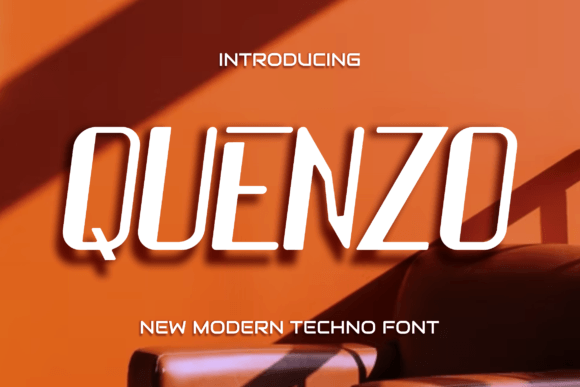
Prepare to be mesmerized by Quenzo, the display font that's bursting with character and endless possibilities. Its playful and dynamic nature ignite a spark of creativity within you, urging you to unleash your imagination.
Quenzo's charming personality transcends the mundane, inviting you to craft designs that radiate a sense of joy and whimsy. Whether you're a seasoned wordsmith or a design enthusiast, this font will dance across your screen, leaving a trail of captivating typography.
Picture this: your website headlines commanding attention, your social media posts radiating wit, and your print materials exuding an irresistible charm—all thanks to the transformative power of Quenzo. It's the perfect companion for projects that demand a touch of the extraordinary, where every word carries a weight of personality.
But Quenzo isn't just a pretty face—it's also a master of adaptability. Its versatility allows it to effortlessly blend into any design concept, from vibrant posters to elegant invitations. Each letterform is a stroke of genius, carefully crafted to enhance readability and evoke an emotional connection.
So, why settle for ordinary when you can embrace the extraordinary? Quenzo is the font that will ignite your creativity, elevate your designs, and leave an unforgettable impression on your audience. It's a font that empowers you to express yourself with confidence and flair, turning every design project into a masterpiece.